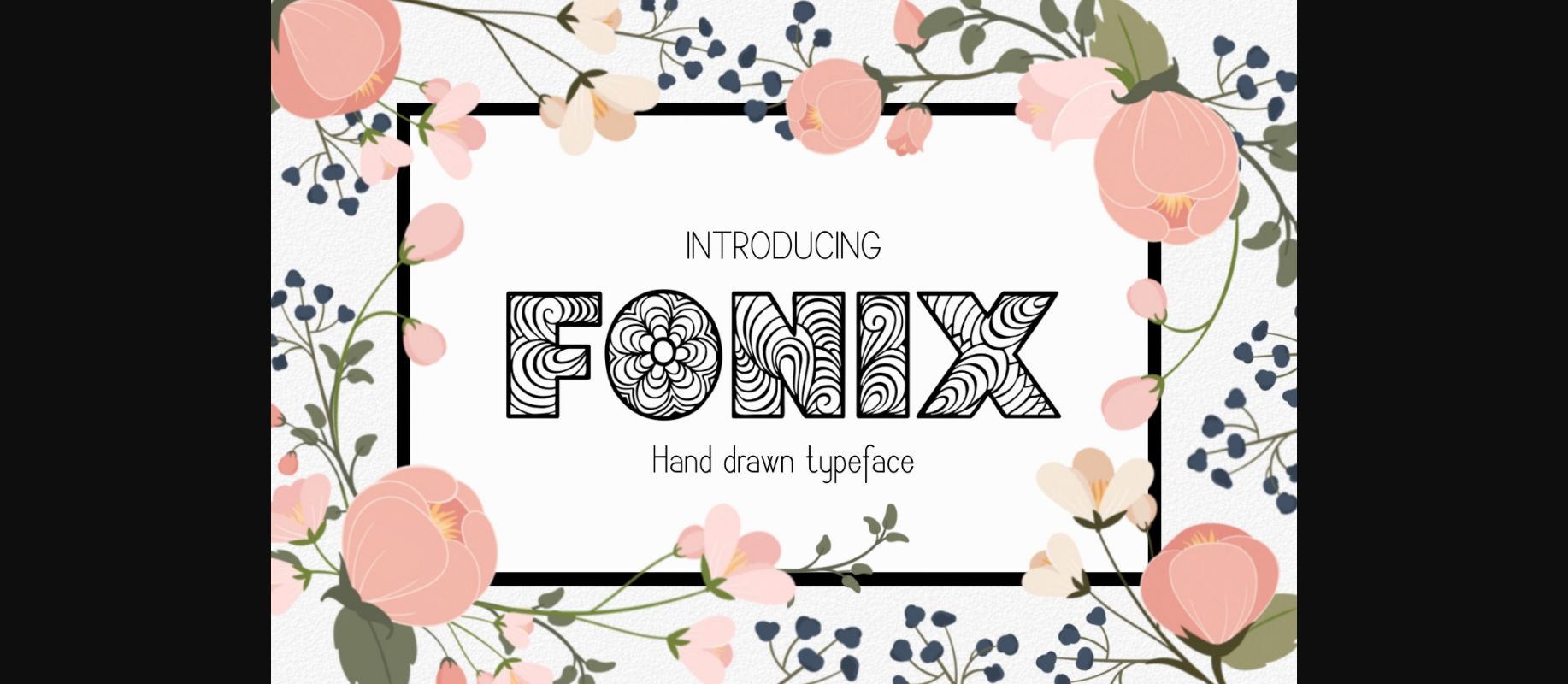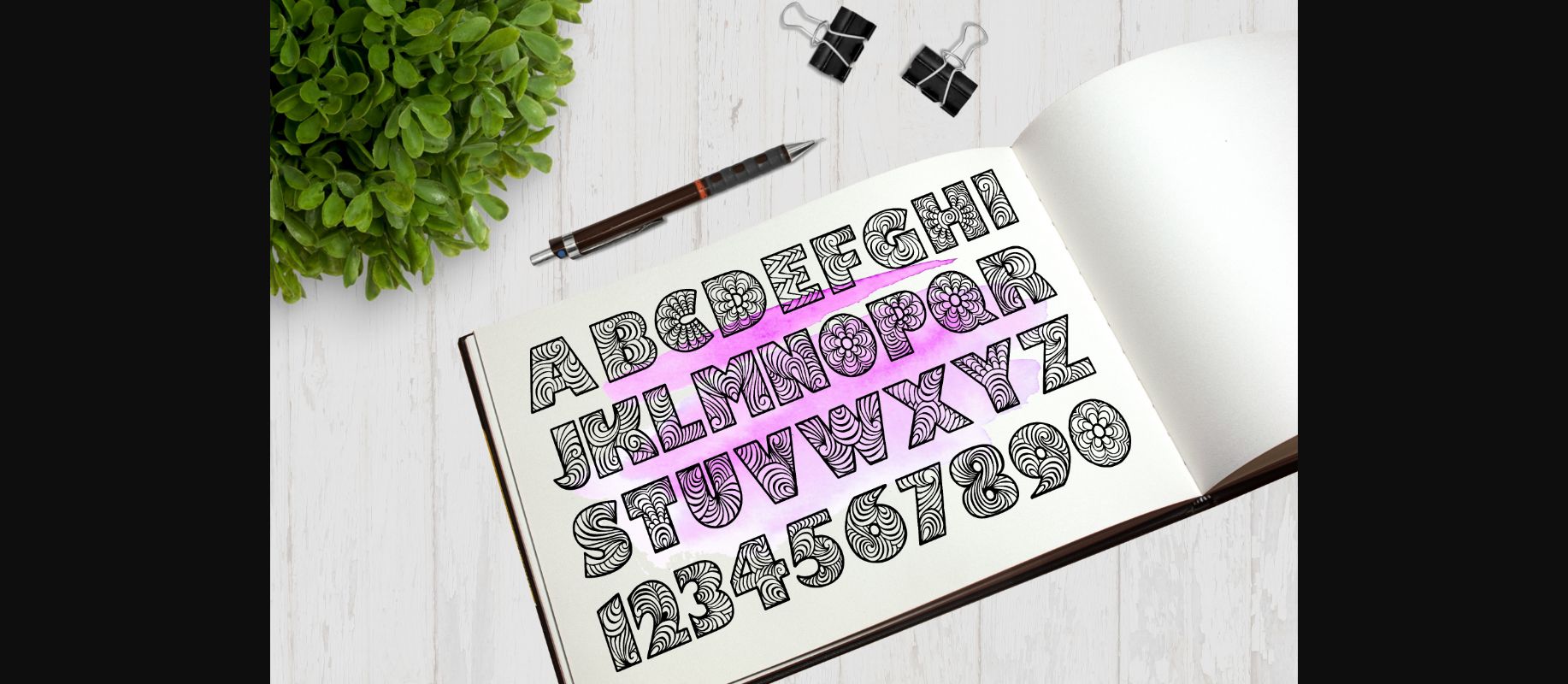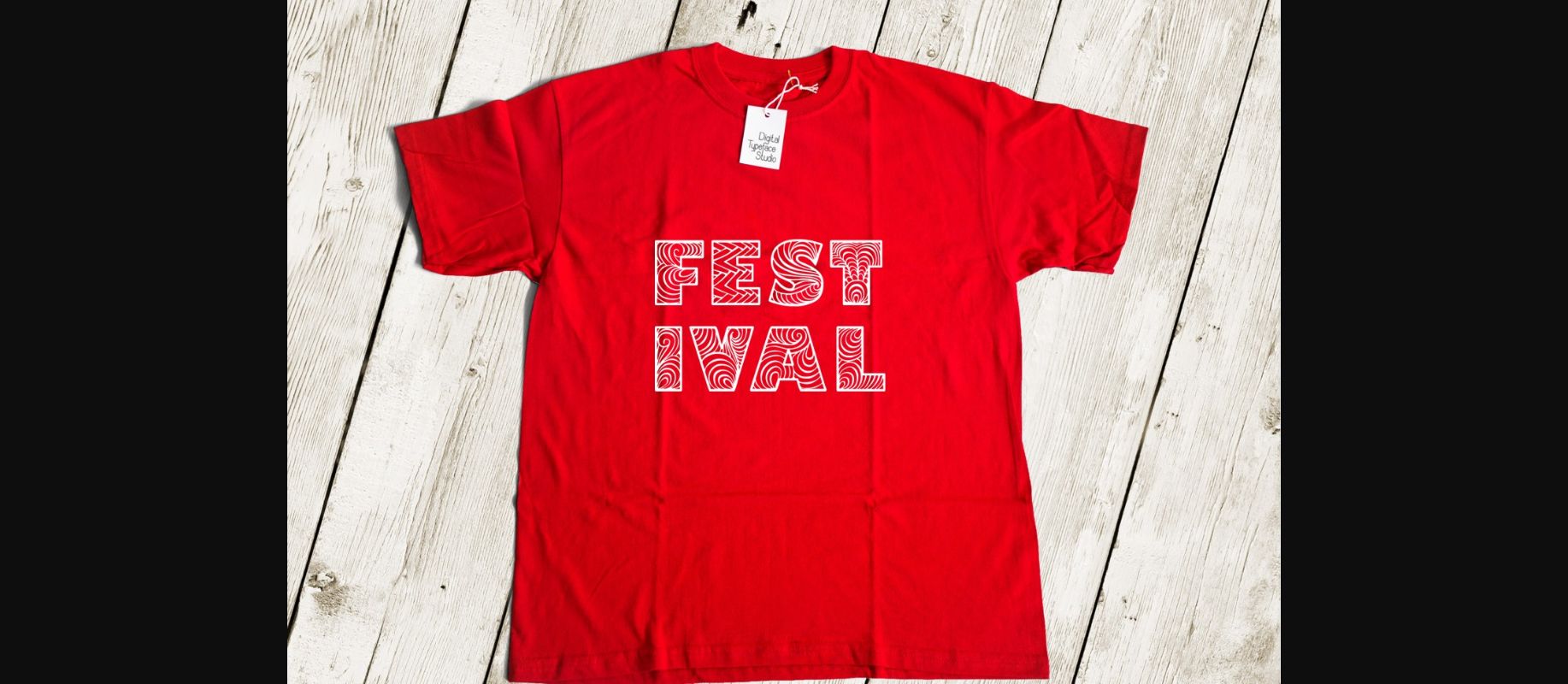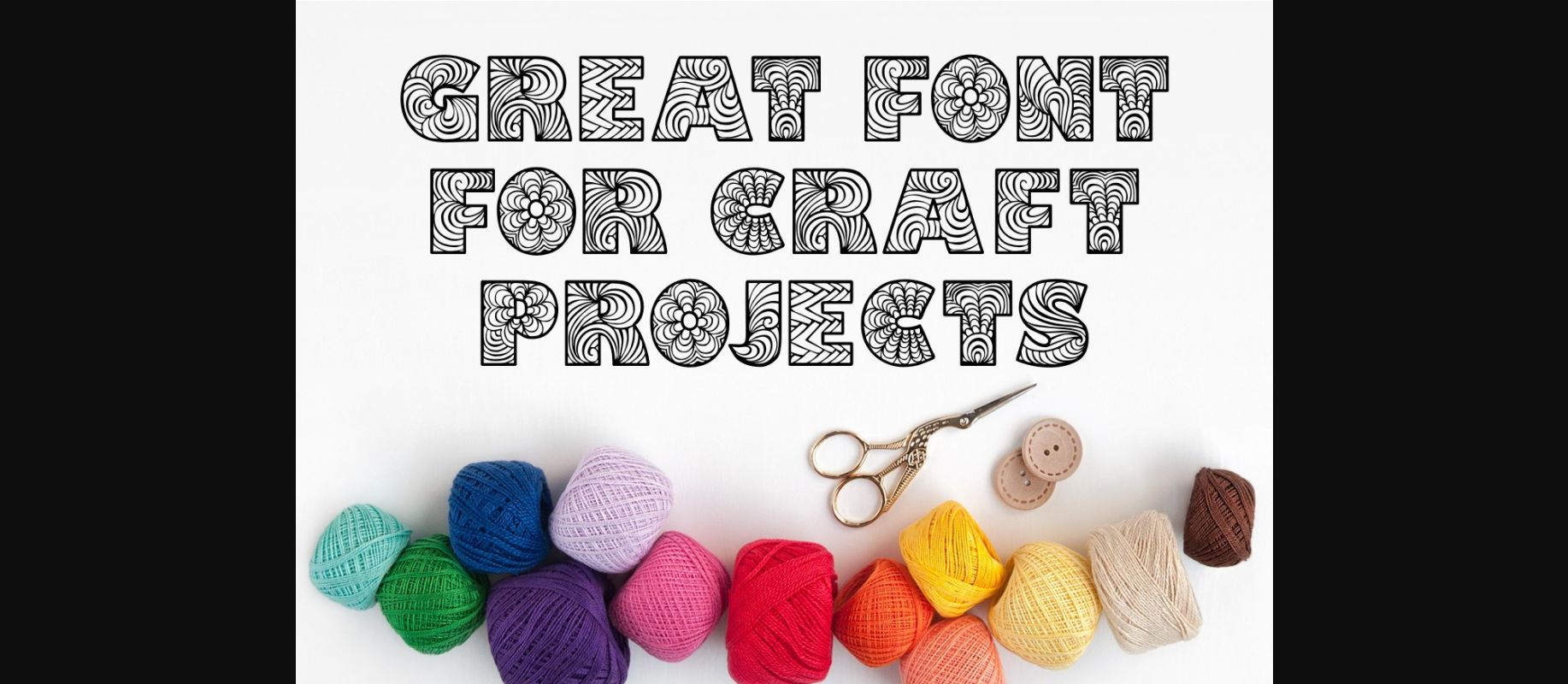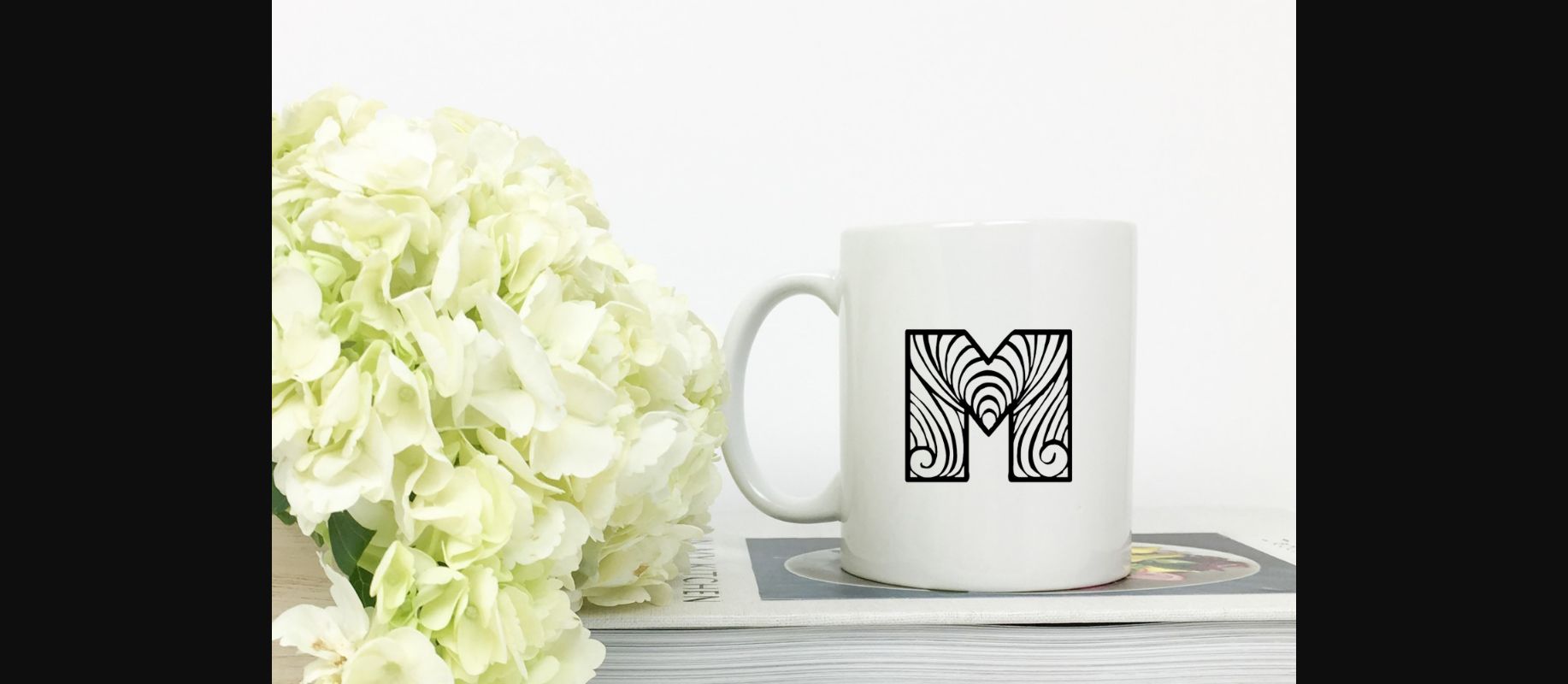
HomeDecorative FontsFonix Font Decorative Fonts Fonix Font FacebookXPinterestWhatsApp 1 of 5 About Fonix Font The Fonix font is created for crafters who look for fresh fancy decorated letters. DOWNLOAD NOW People also explored Fathers Font Calligraphy Font Api-digital Font Beautiful of Milkyway Font Automatica Font Play Shop Sign Font Ashley Font Donitea Script Font Geneva Font 369 0 TagsFonixFonix Font Previous articleRockbiter FontNext articleNoggovoso Font LEAVE A REPLY Cancel reply Comment: Please enter your comment! Name:* Please enter your name here Email:* You have entered an incorrect email address! Please enter your email address here Website: Save my name, email, and website in this browser for the next time I comment. Personal Use Free Daisy Script Personal Use Free Read more about this font Hysteria Santa Personal Use Free Read more about this font Propaganda Personal Use Free Read more about this font UseYourImagination Personal Use Free Read more about this font BLOG Best Fonts for T-Shirt Design – Top 2025 Picks In 2025, t-shirt design has become more than just fashion—it's a form of self-expression. Whether you're... Exploring Font Trends 5 Fonts That Will Dominate Design Trends in 2026 Using Fonts in Digital Marketing: Tips to Strengthen Your Brand Identity